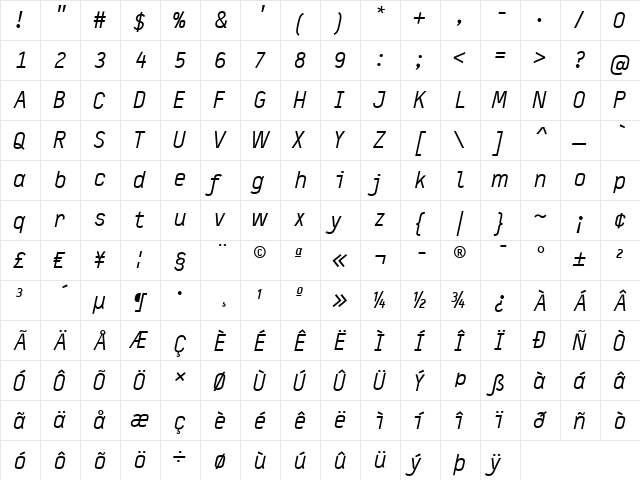
Typestar Italic
Design Context for Typestar Typeface
Typestar takes a measured approach to typography — its balanced proportions and neutral character make it a reliable workhorse for both digital and print work. The slanted form adds forward momentum and visual energy.
Pro Tip: Try Typestar for annotation and caption copy alongside an upright companion — the contrast in angle creates a dynamic but ordered typographic system.